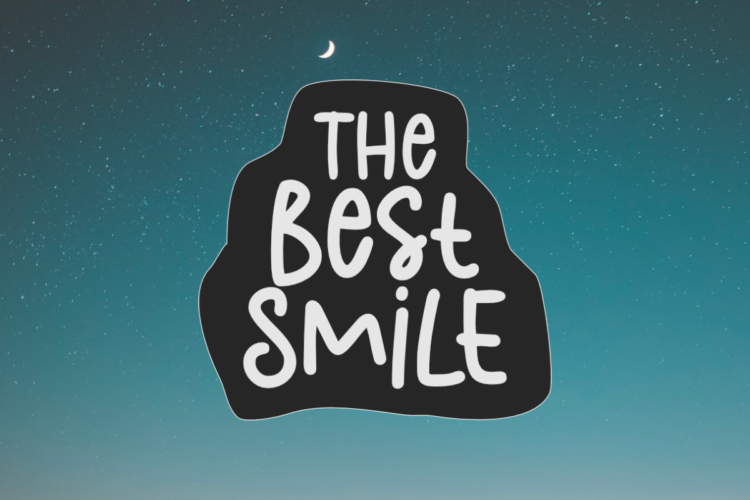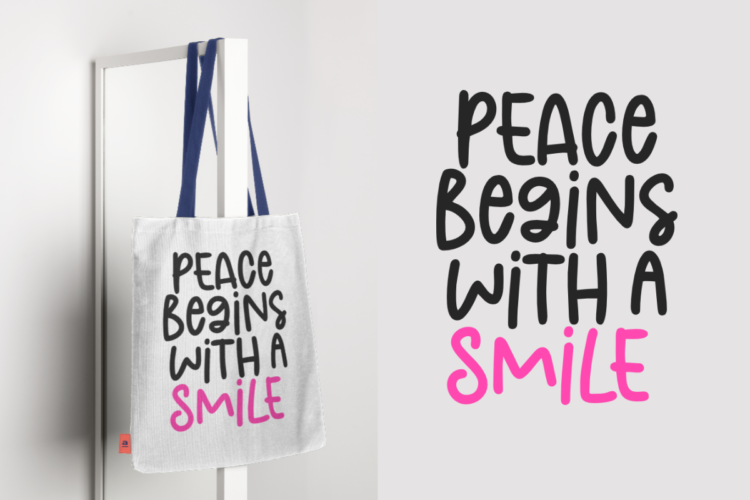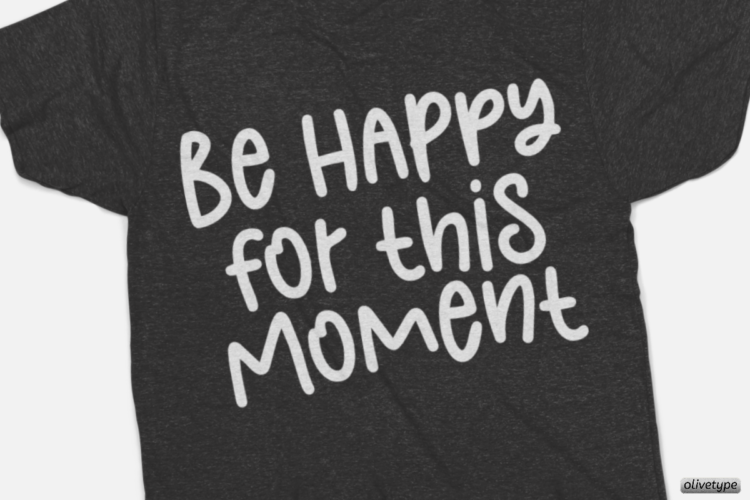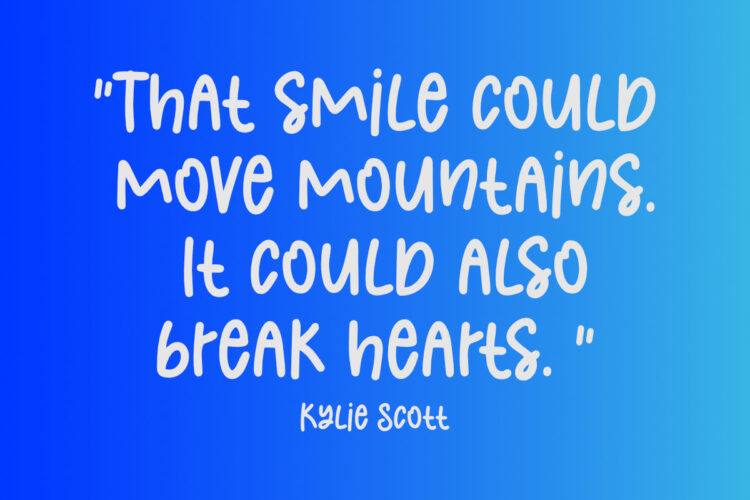
The Best Smile is a cute, quirky and childish handwritten font. Whimsical and relaxed, this font will brighten up each of your designs. Add it confidently to your projects, and you will love the results.